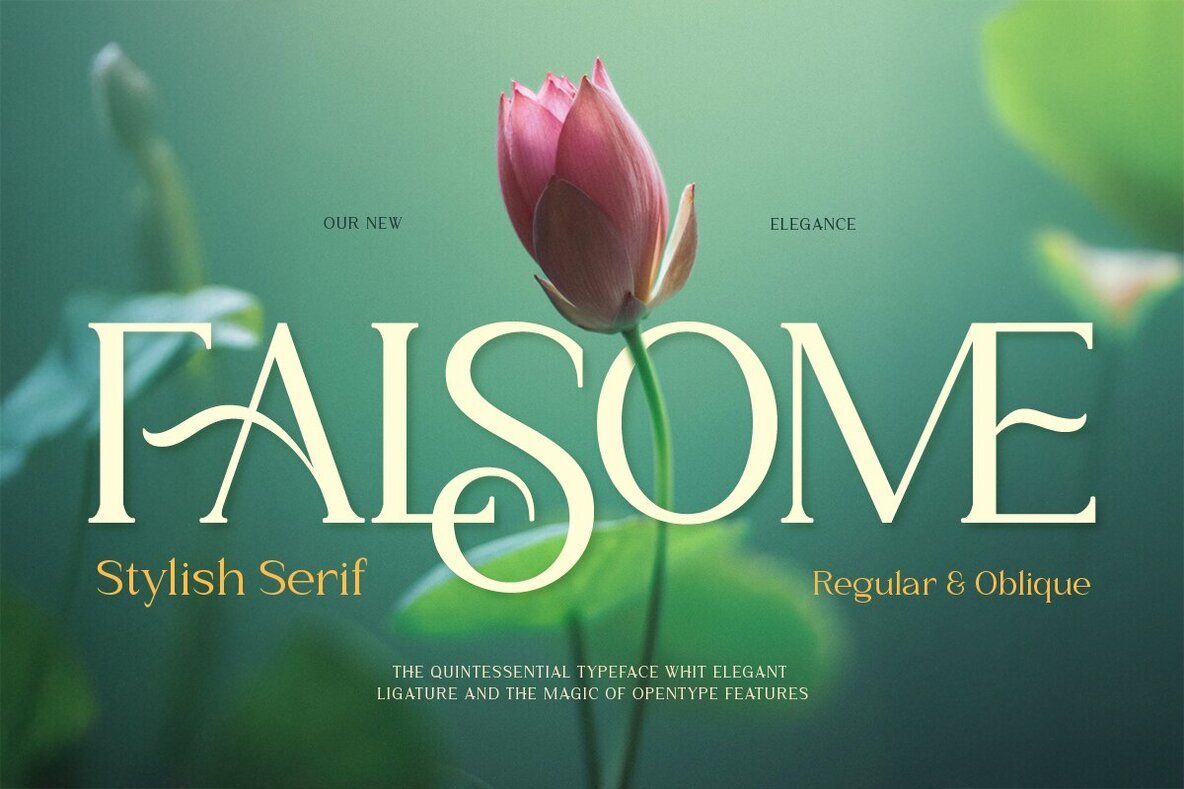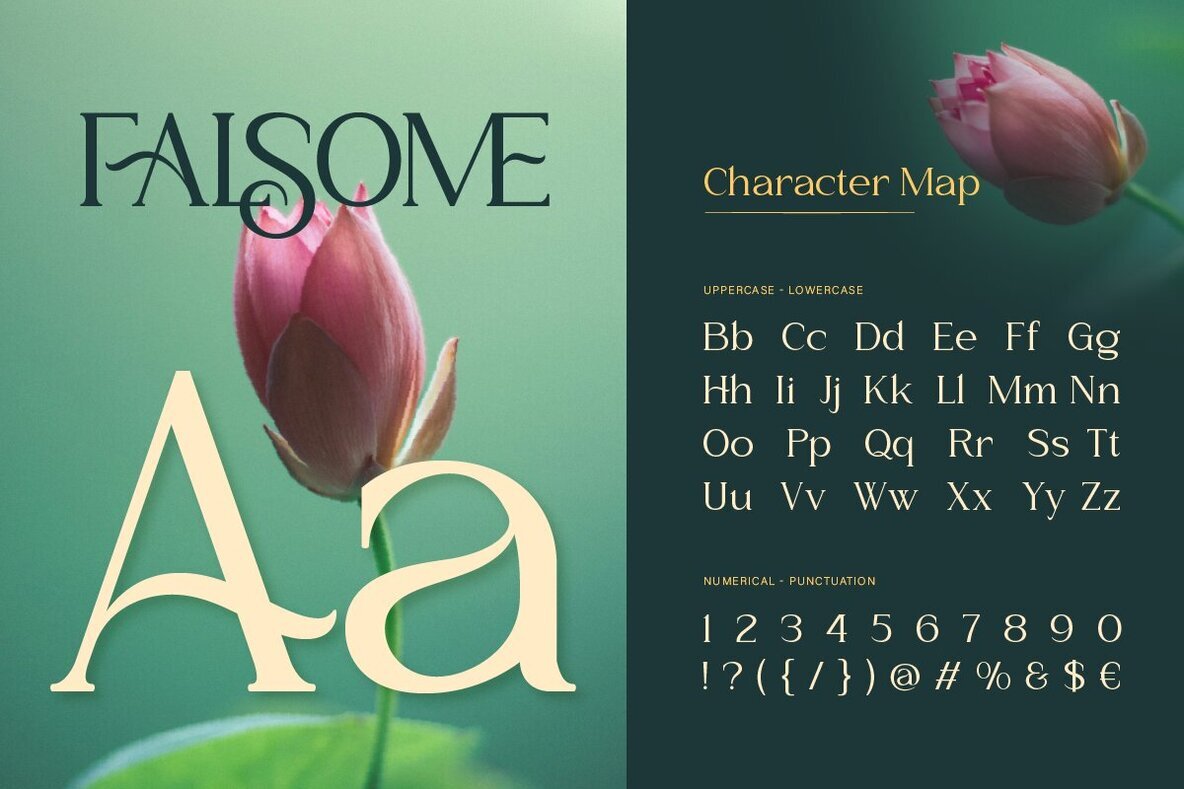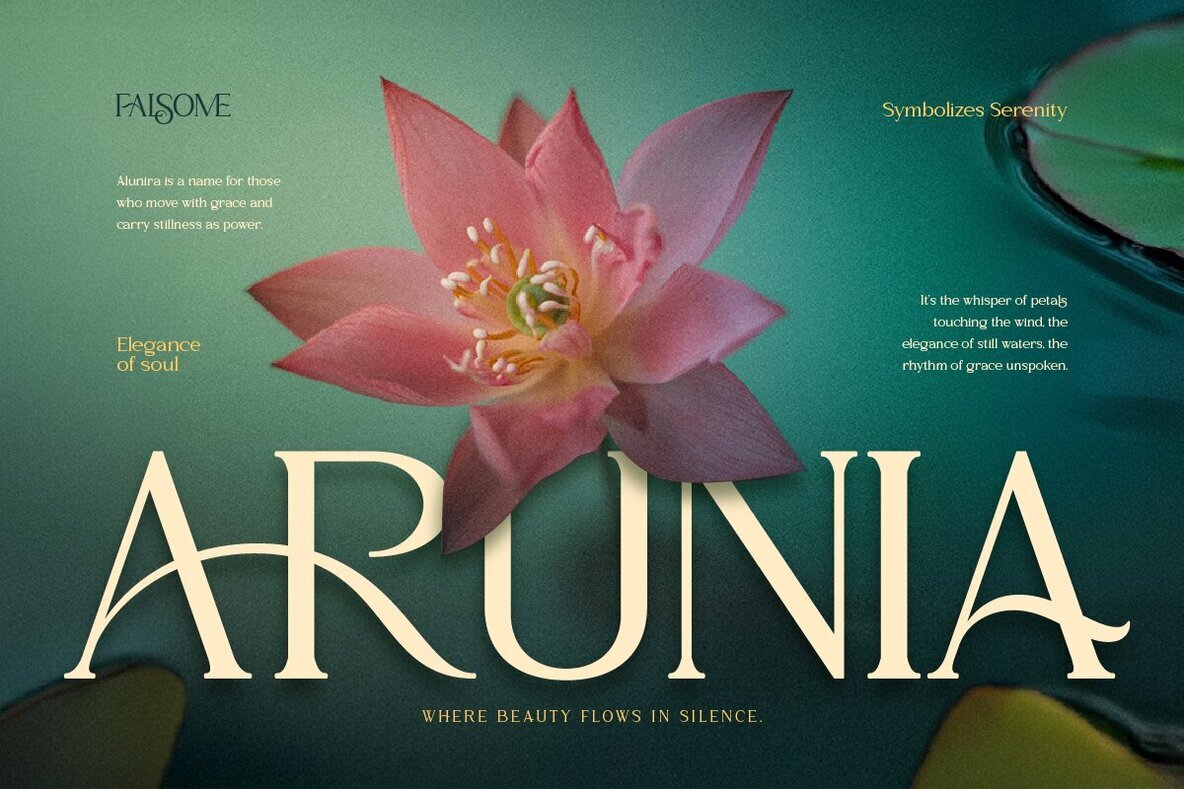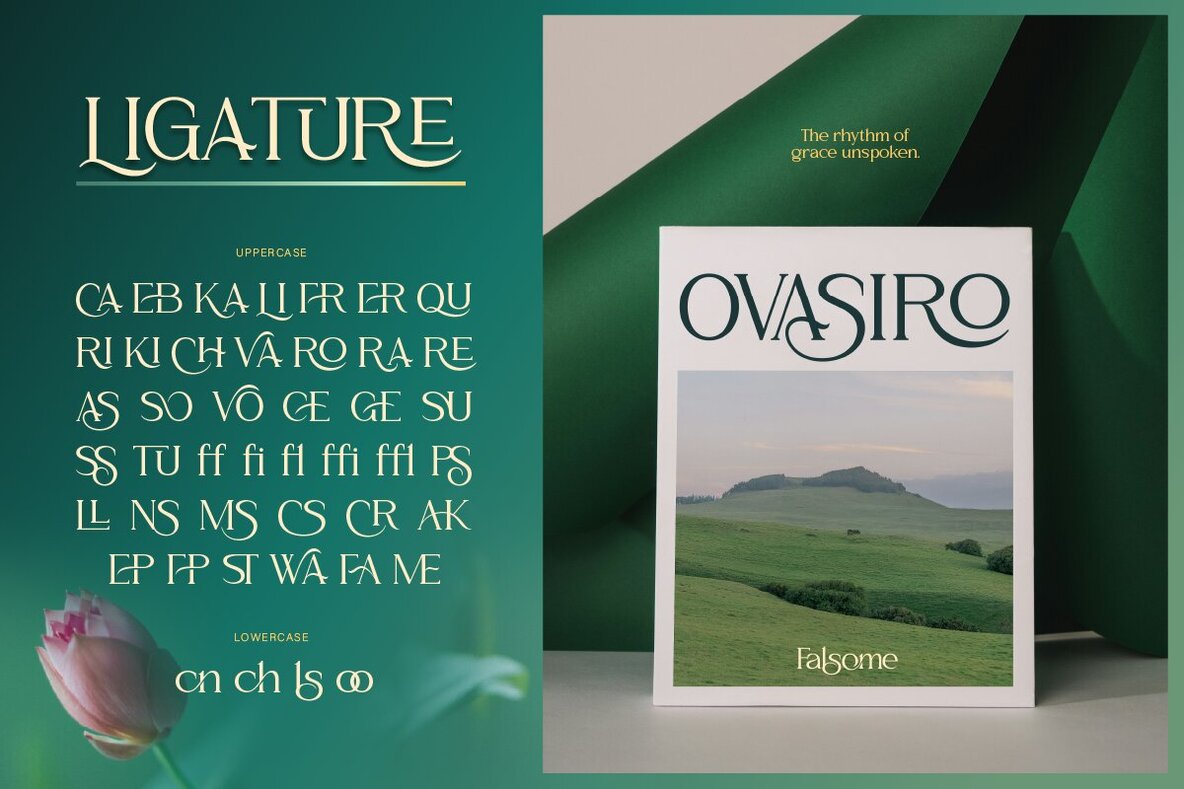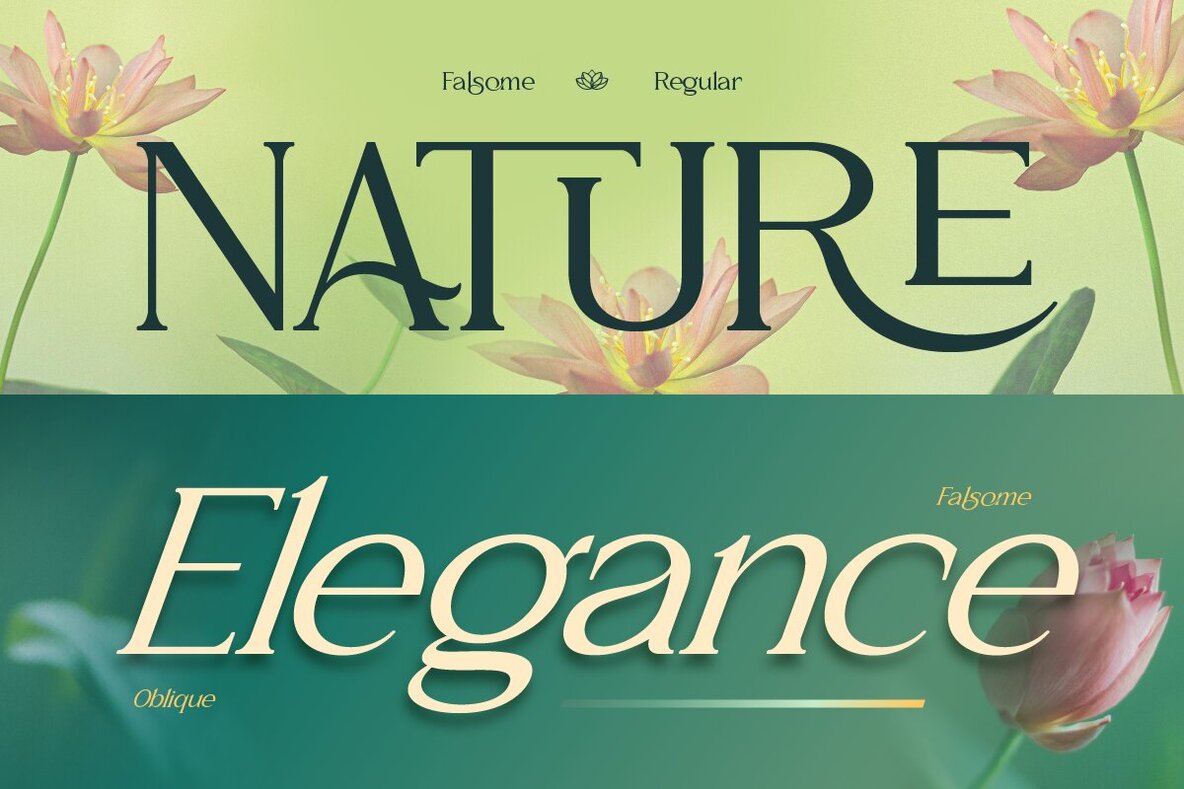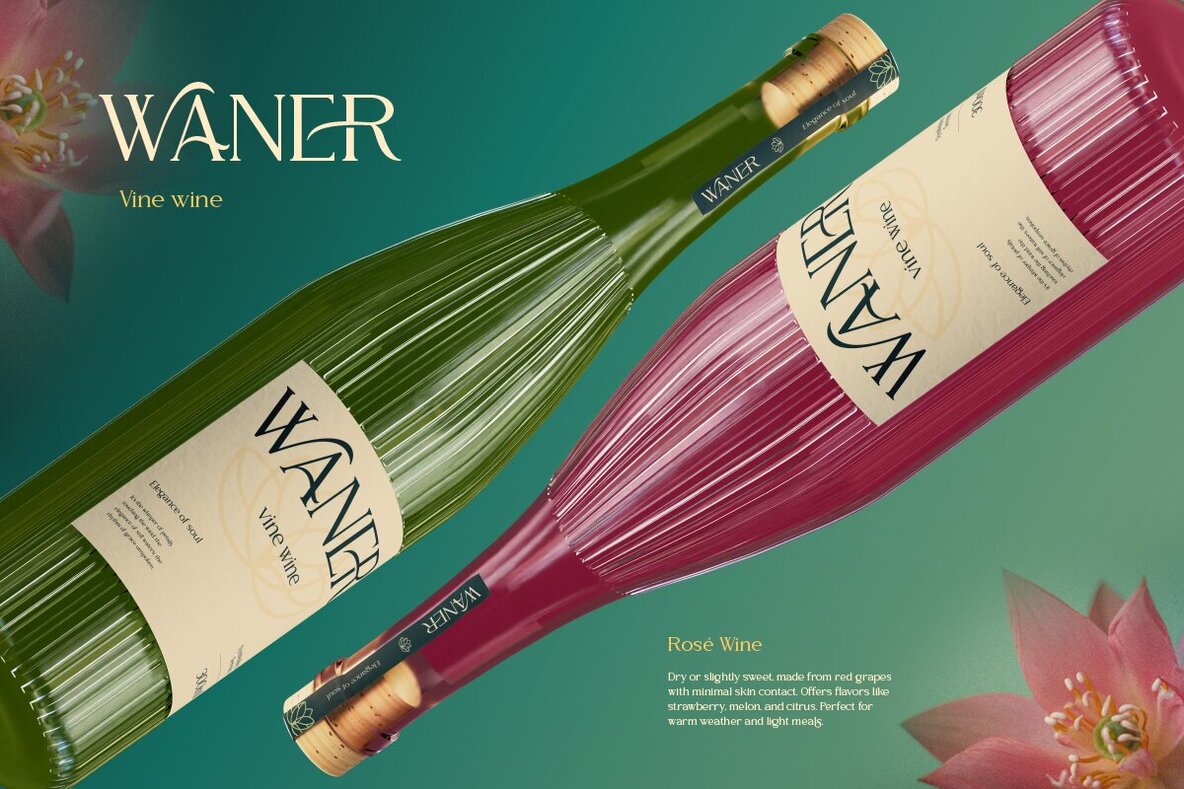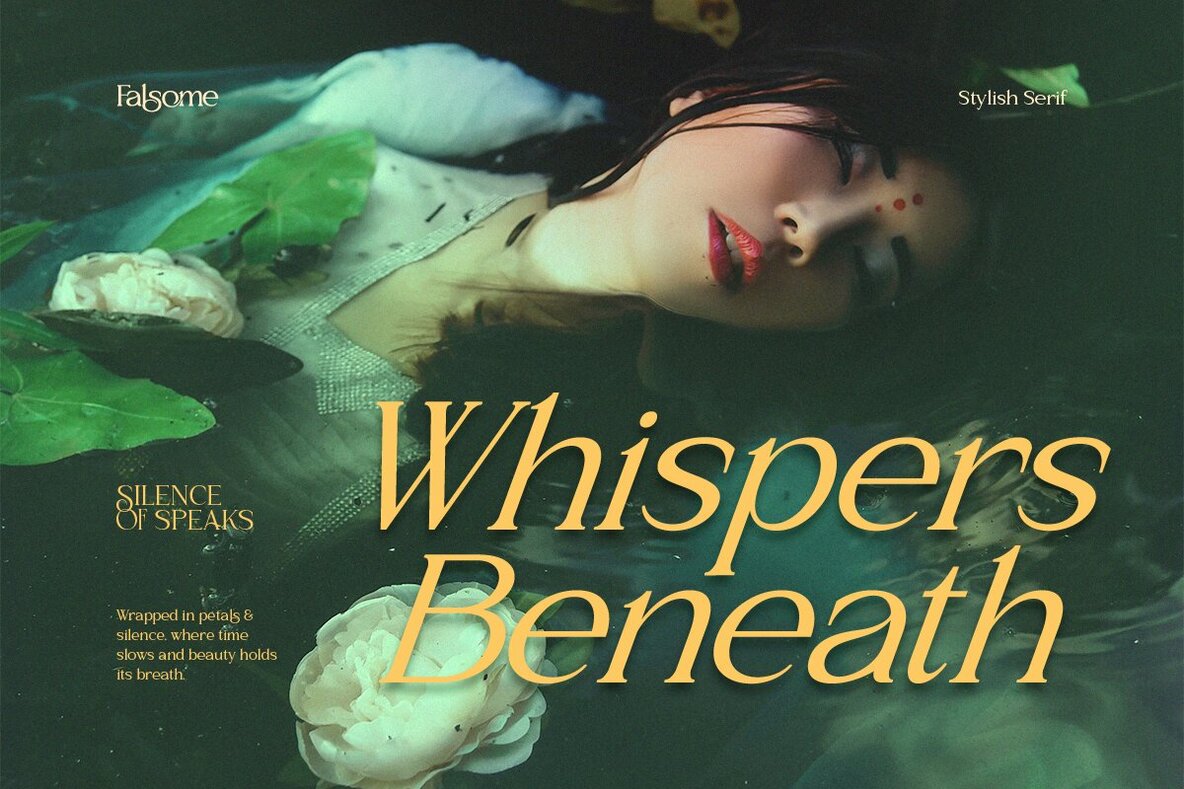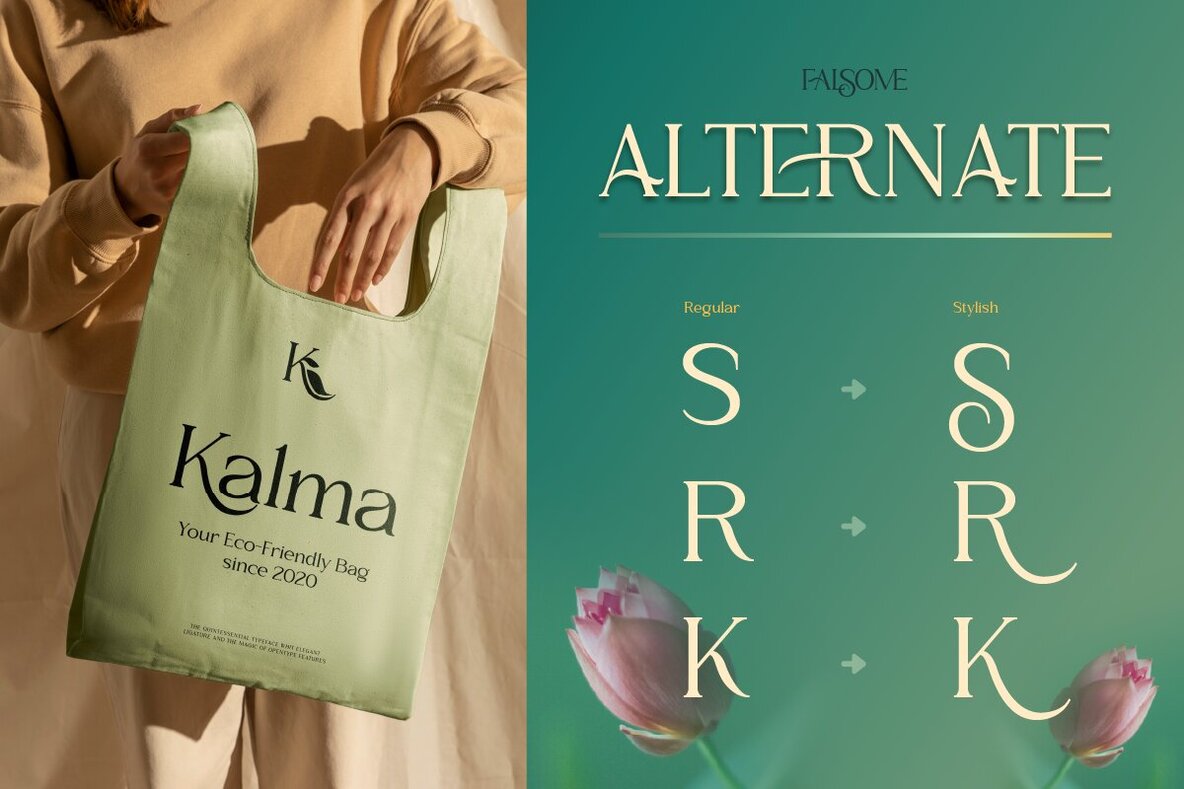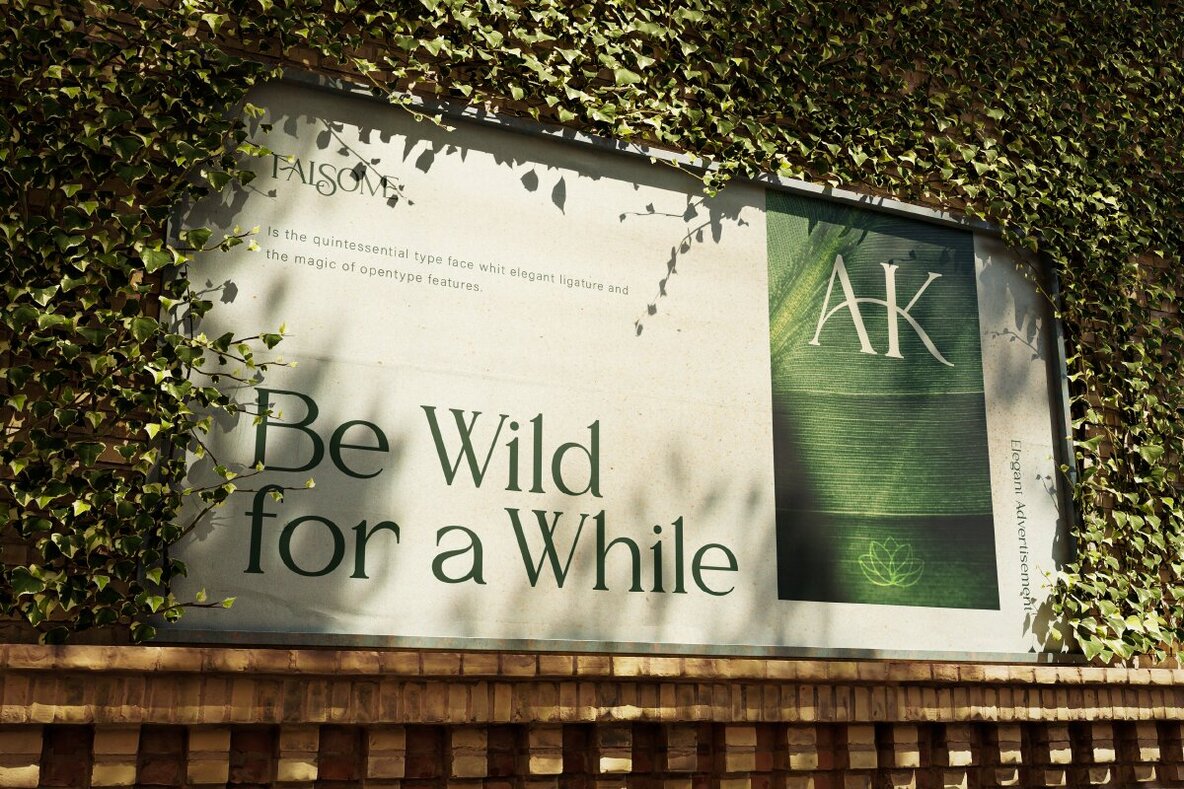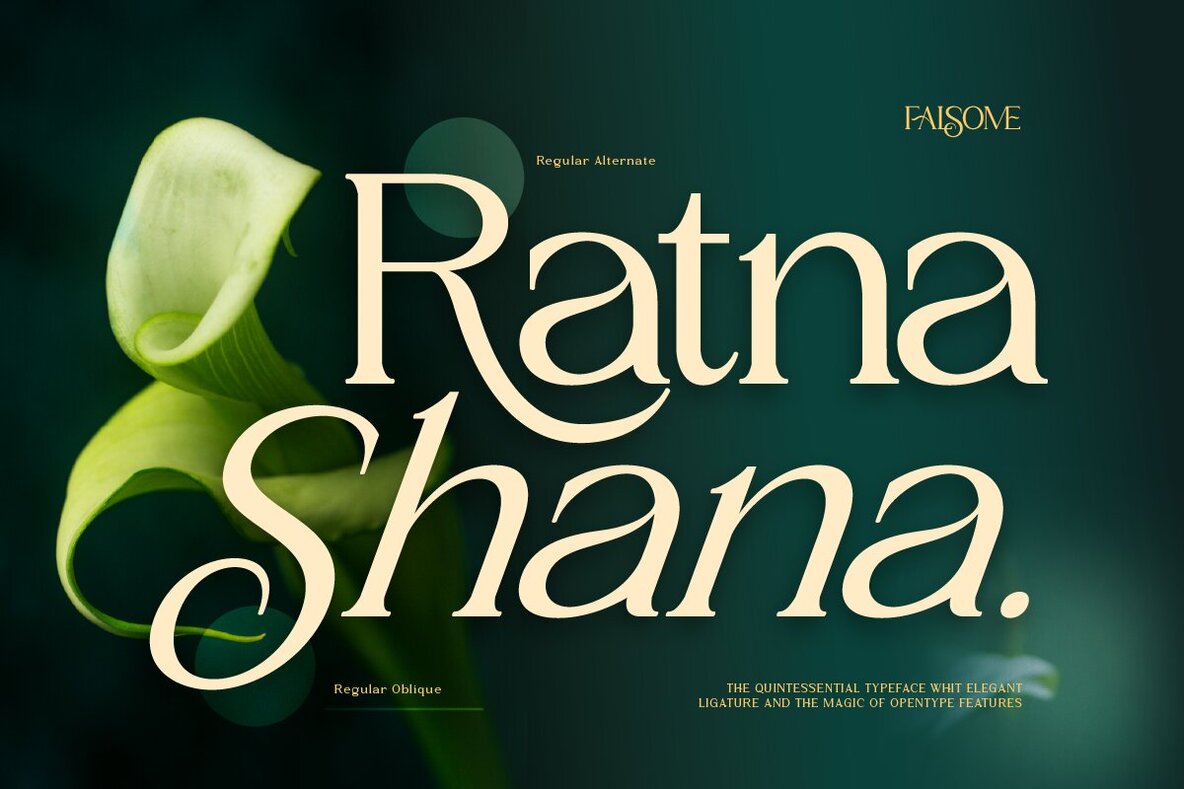
Falsome Font
Discover Falsome, an exquisite serif typeface that flawlessly combines classic charm with modern sophistication. Expertly crafted with painstaking attention to detail, Falsome offers a distinct blend of allure through its unique ligatures and alternates. Available in both regular and oblique styles, it empowers designers to create dynamic and layered typographic compositions that elevate any design project. With Falsome, your typography gains an extra layer of refinement and timeless appeal. Whether you're crafting a luxurious brand identity, designing elegant wedding invitations, curating fashion editorials, or developing sophisticated packaging, Falsome delivers the aesthetic depth you're looking for. Its versatility and user-friendliness make it an ideal choice for projects that demand a stylish, feminine, and enduring look.Falsome: A Refined Serif Typeface